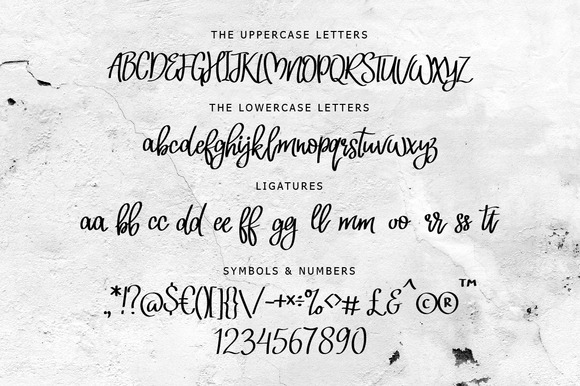
Introduction to Neoscopic Brush Font
Have you ever found yourself in the midst of a creative project, pouring your heart and soul into every detail, only to realize that the perfect font is missing? It’s a frustrating feeling, especially when you’ve invested hours into your design. But what if I told you there’s a font that can elevate your high-quality design resource to the next level?
Enter the Neoscopic Brush Font, a stunning handwritten font created by Chekart. This free download is a game-changer for designers, offering a unique and versatile style that can add a personal touch to any creative project. With its transparent background and elegant strokes, the Neoscopic Brush Font is perfect for designers looking to add a touch of sophistication to their work.
Whether you’re working on a branding project or a digital art piece, the Neoscopic Brush Font is a valuable resource that can help you achieve your creative vision.
Key Features of Neoscopic Brush Font
- Unique, hand-drawn design with a high level of detail, making it a valuable resource for creative projects.
- High-quality, transparent background, perfect for use in graphic design, digital art, and other creative endeavors.
- Features a high-resolution design (300 DPI), ensuring crisp and clear typography in both print and digital applications.
- Designed to be versatile, allowing for use in a variety of creative projects, from logos and branding to editorial and advertising content.
Honest Review: Neoscopic Brush Font
I recently came across the Neoscopic Brush Font, and I have to say, it’s a great addition to any design resource. This high-quality font is perfect for creative projects that require a touch of elegance and sophistication.
What works well about this font is its unique blend of modern and classic styles. The Neoscopic Brush Font features a range of characters, including letters, numbers, and symbols, all with a consistent and cohesive design. The font also includes a transparent background, making it easy to use in any design project.
- ✨ Unique and stylish design
- ✨ High-quality font with a transparent background
- ✨ Perfect for creative projects and design resources
One limitation of this font is that it’s a bit limited in terms of character sets. While it includes the basics, it may not be suitable for projects that require a wide range of special characters or languages.
Overall, I’m impressed with the Neoscopic Brush Font. It’s a great choice for designers looking for a high-quality, free download font that’s perfect for creative projects.
The Neoscopic Brush Font is perfect for creative projects such as logos, social media graphics, and brochures. It’s also great for use in digital products, such as e-books and presentations. With its unique and elegant design, the Neoscopic Brush Font is sure to elevate your design to the next level.